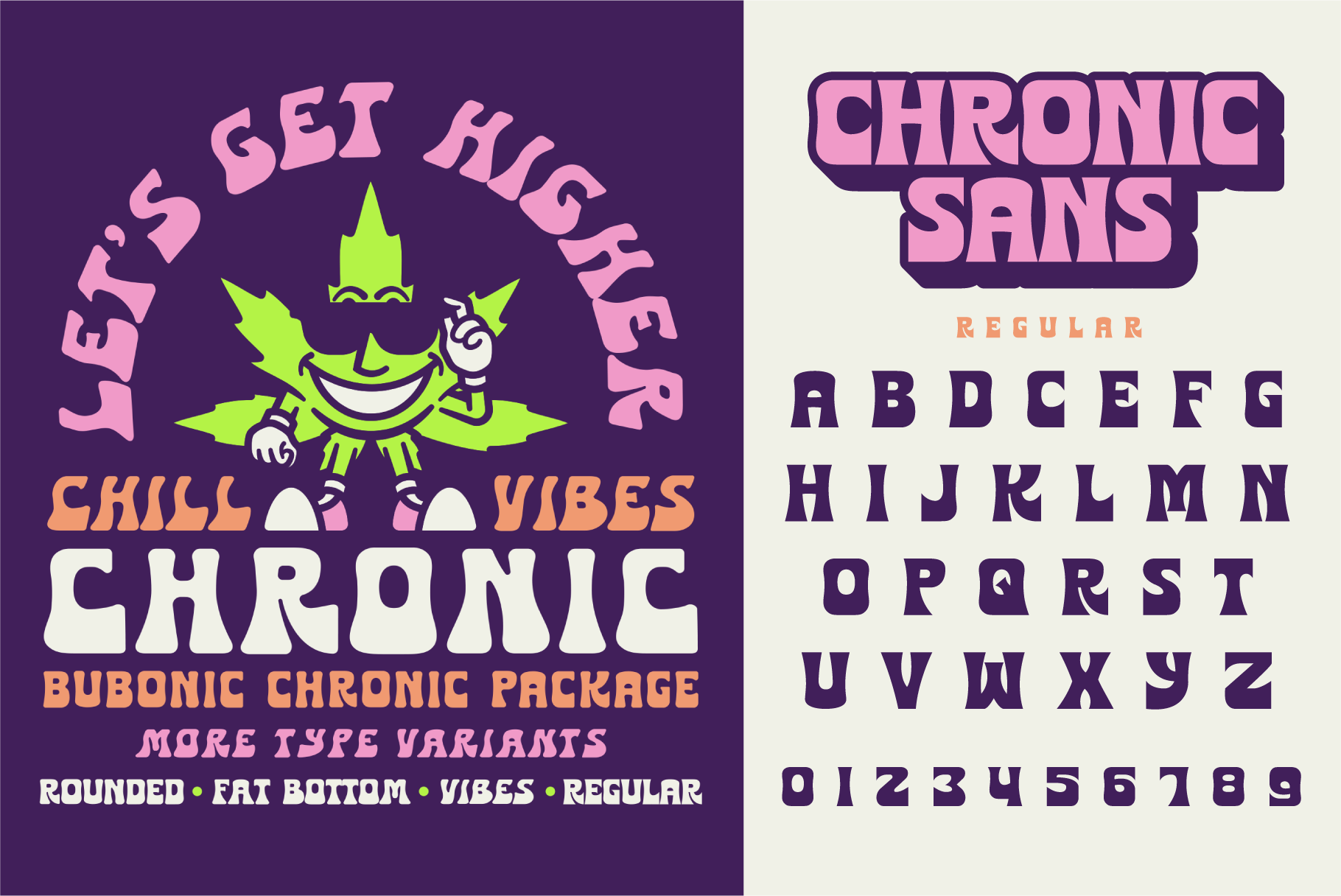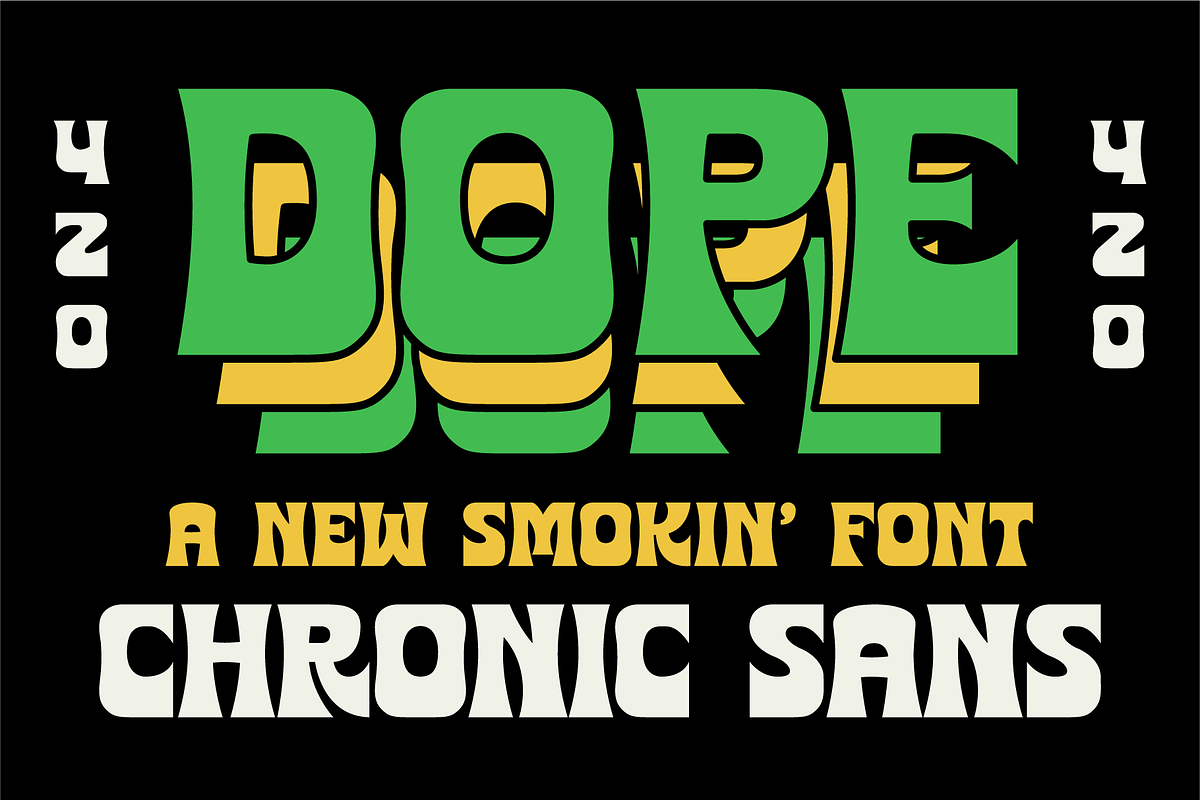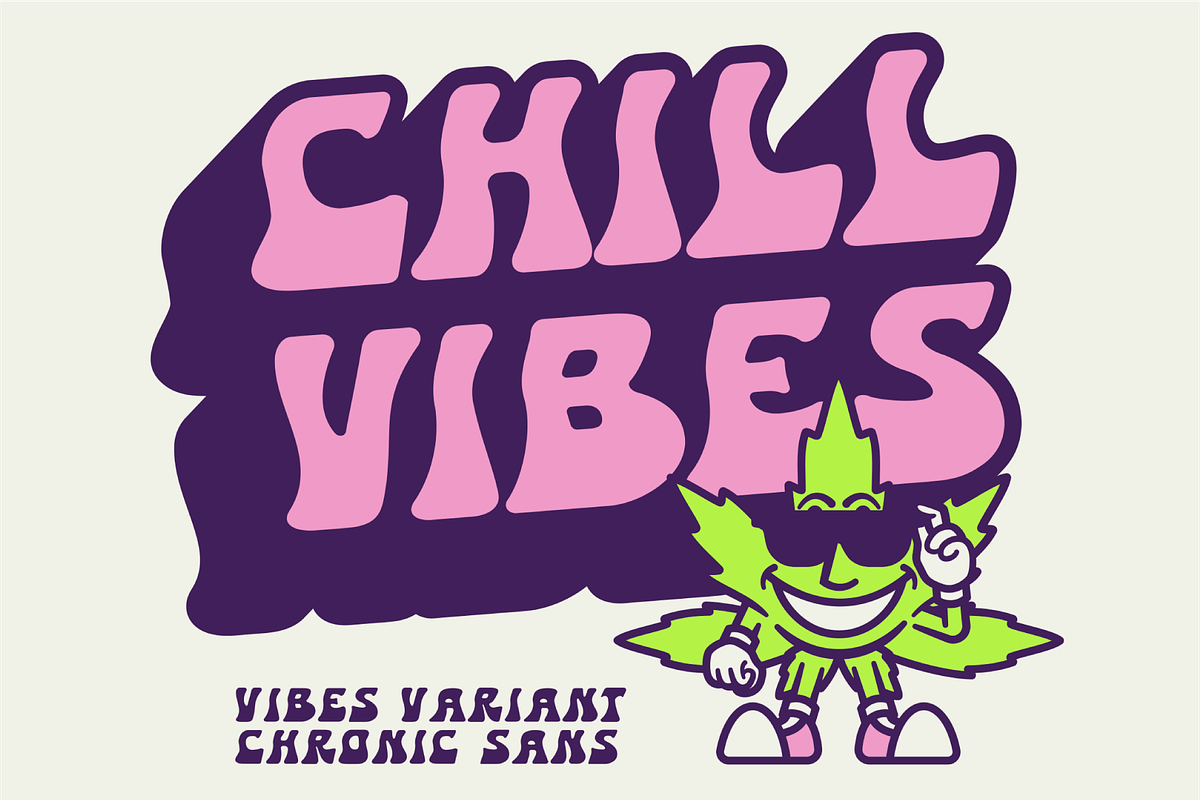
Chronic Sans Font Family
The bubonic chronic family is here! Includes the original Chronic Sans as well as rounded, fat bottom and vibes! All variations come with numbers and basic punctuation.